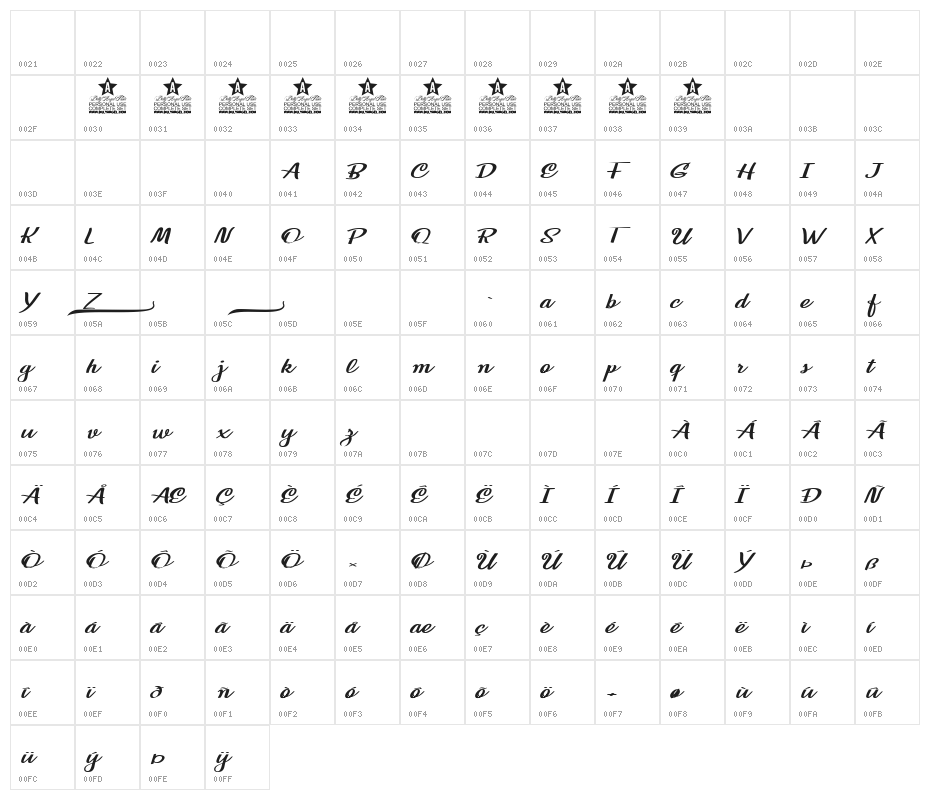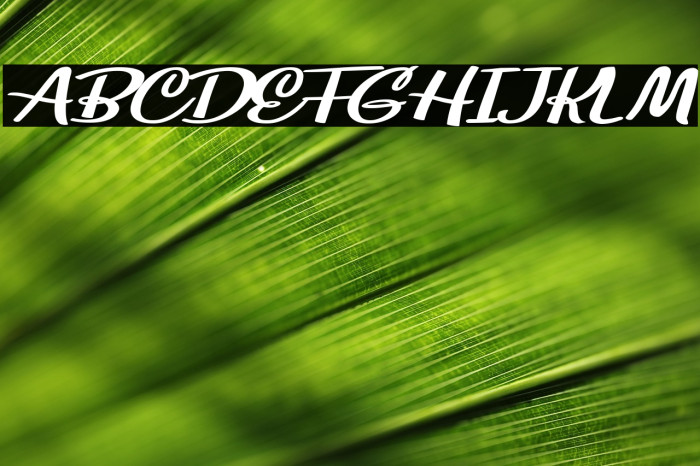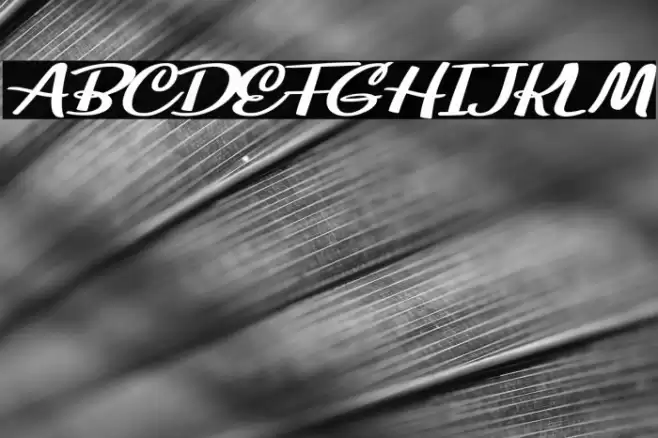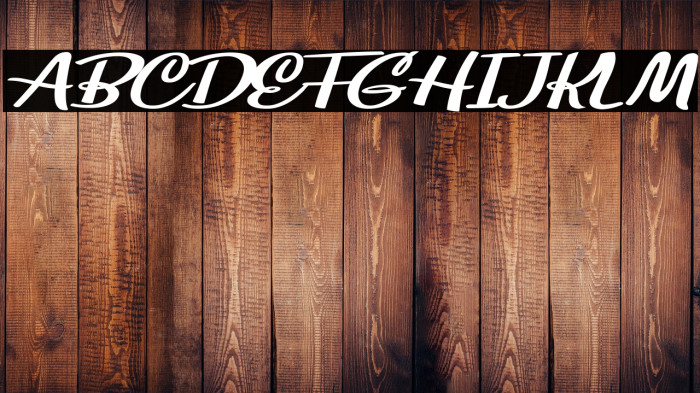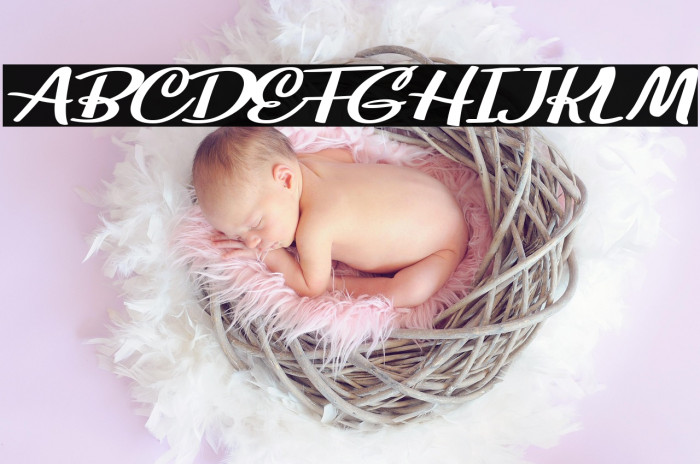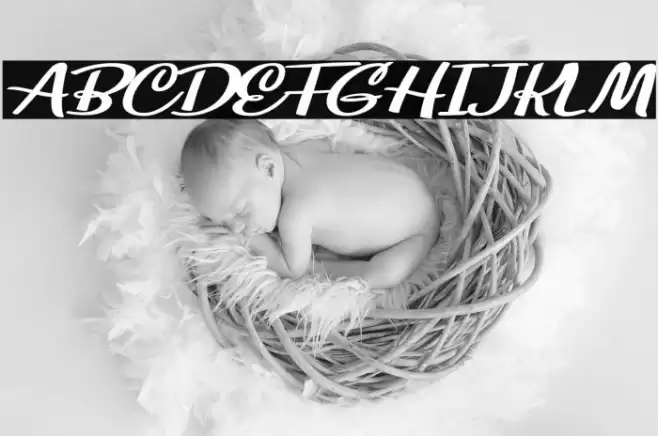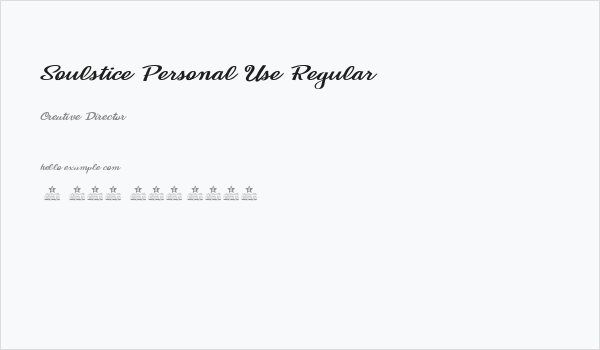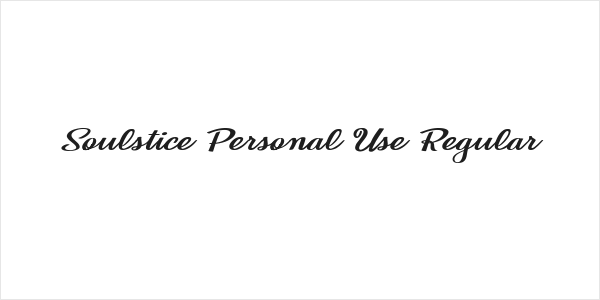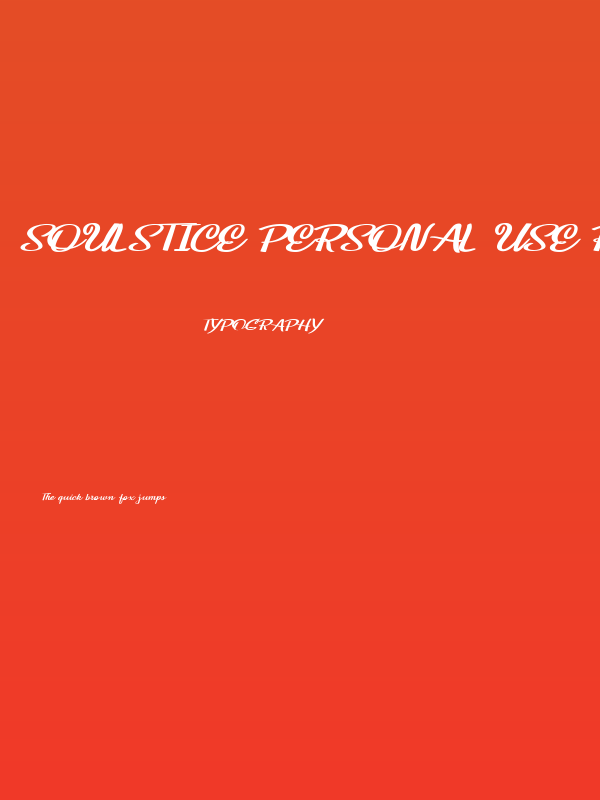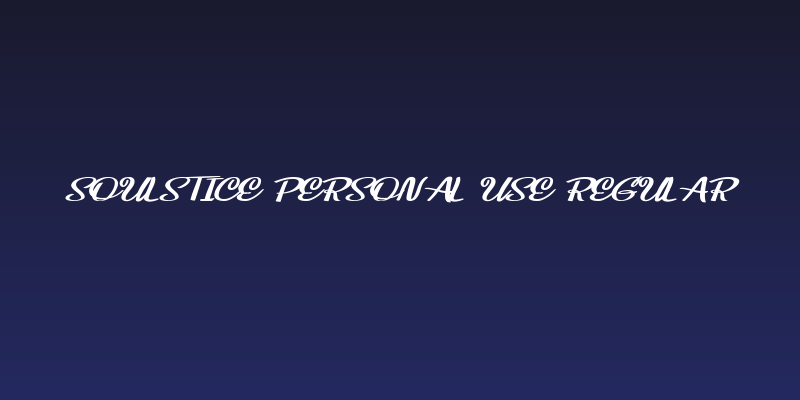
Soulstice Personal Use Regular Font
Soulstice Personal Use Regular Description
This font features a flowing, elegant script style with a modern touch. The uppercase letters are bold and sweeping, with a slight slant that adds a dynamic feel. The lowercase letters maintain a consistent flow, enhancing readability while preserving the decorative nature of the script. The characters are well-spaced, ensuring clarity and legibility. The font's design is both sophisticated and approachable, making it suitable for a variety of creative applications. The special characters are integrated seamlessly, maintaining the overall aesthetic of the font.
| Proposed Projects | Ideal for wedding invitations, branding, greeting cards, and elegant signage. |